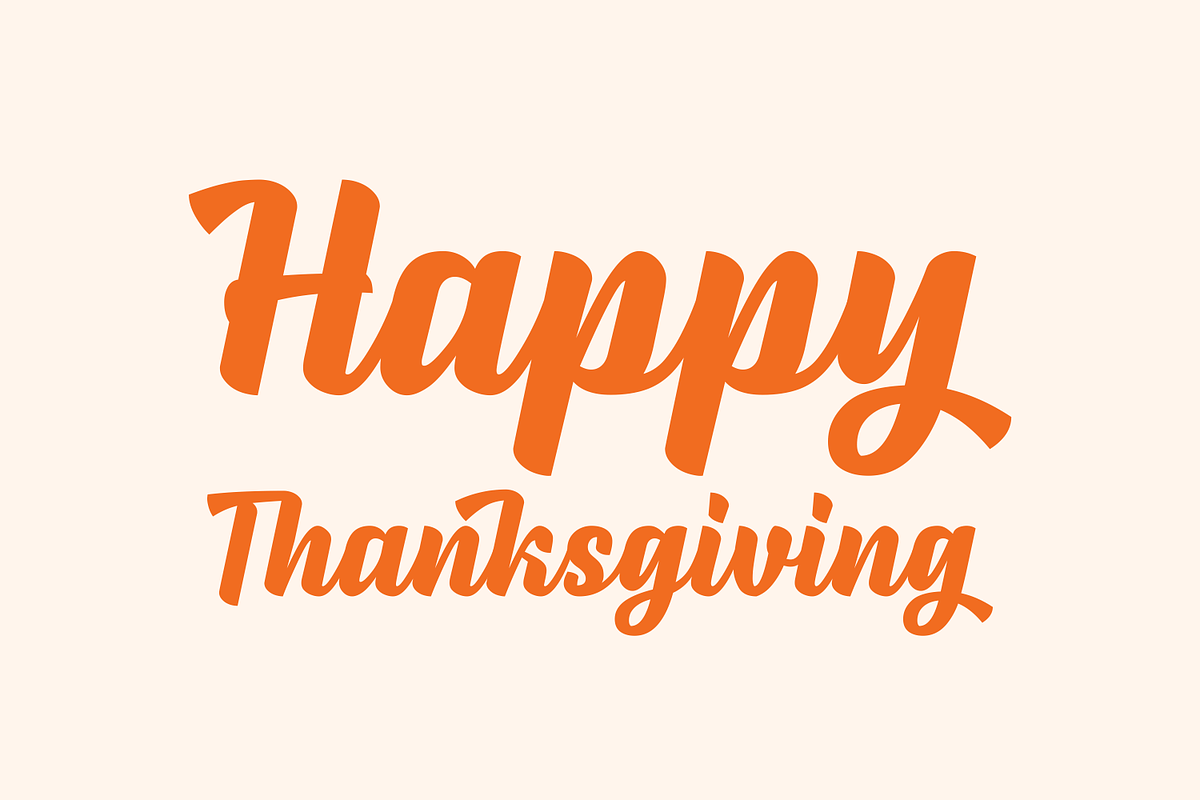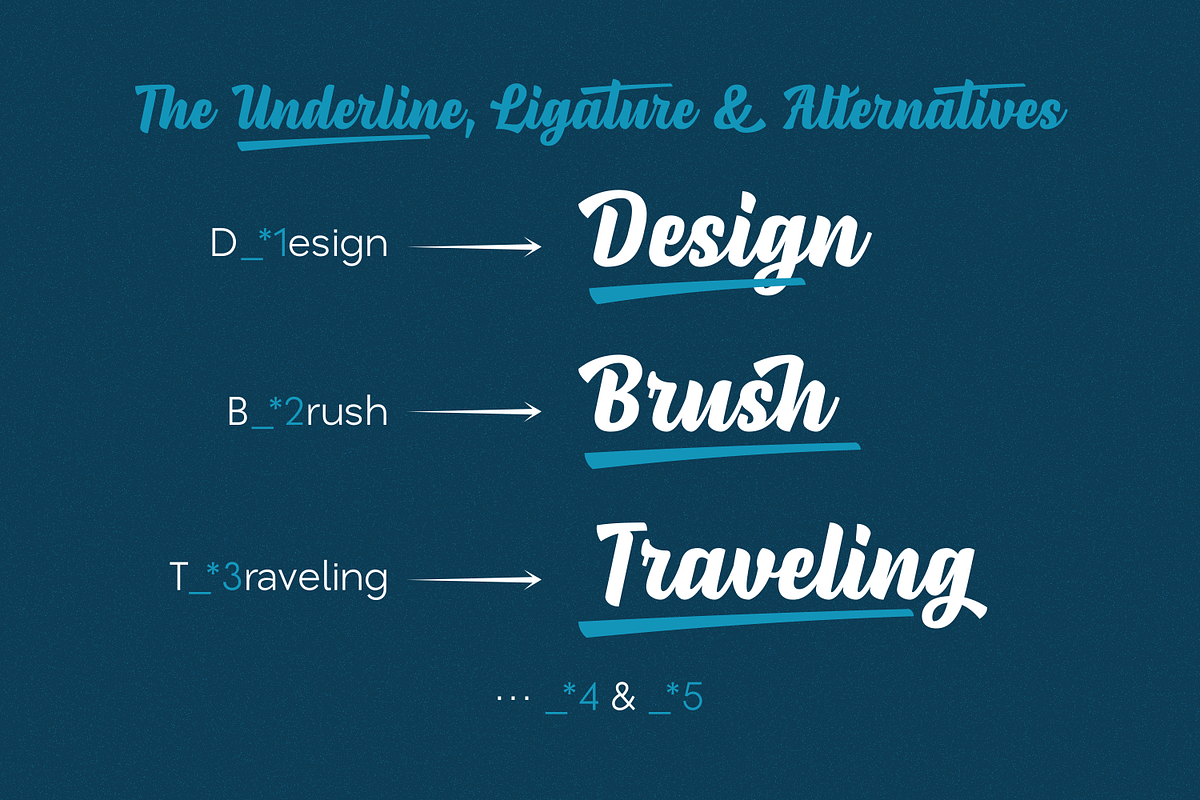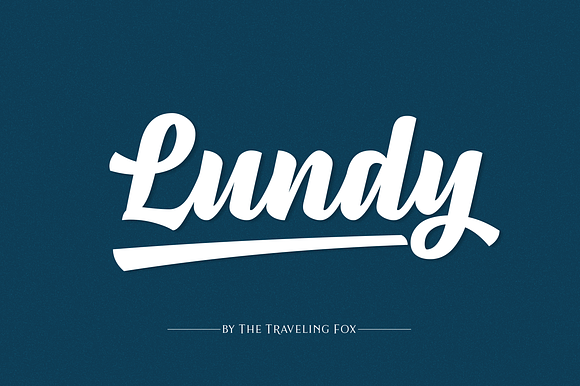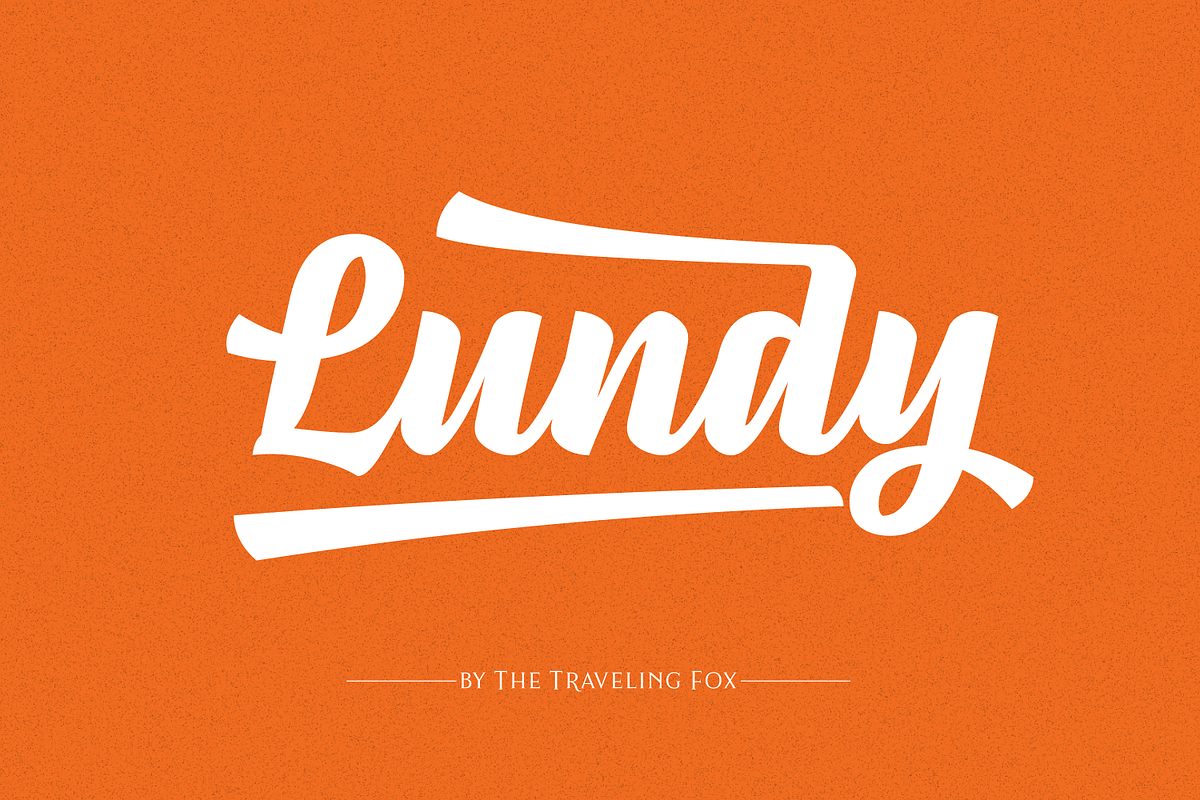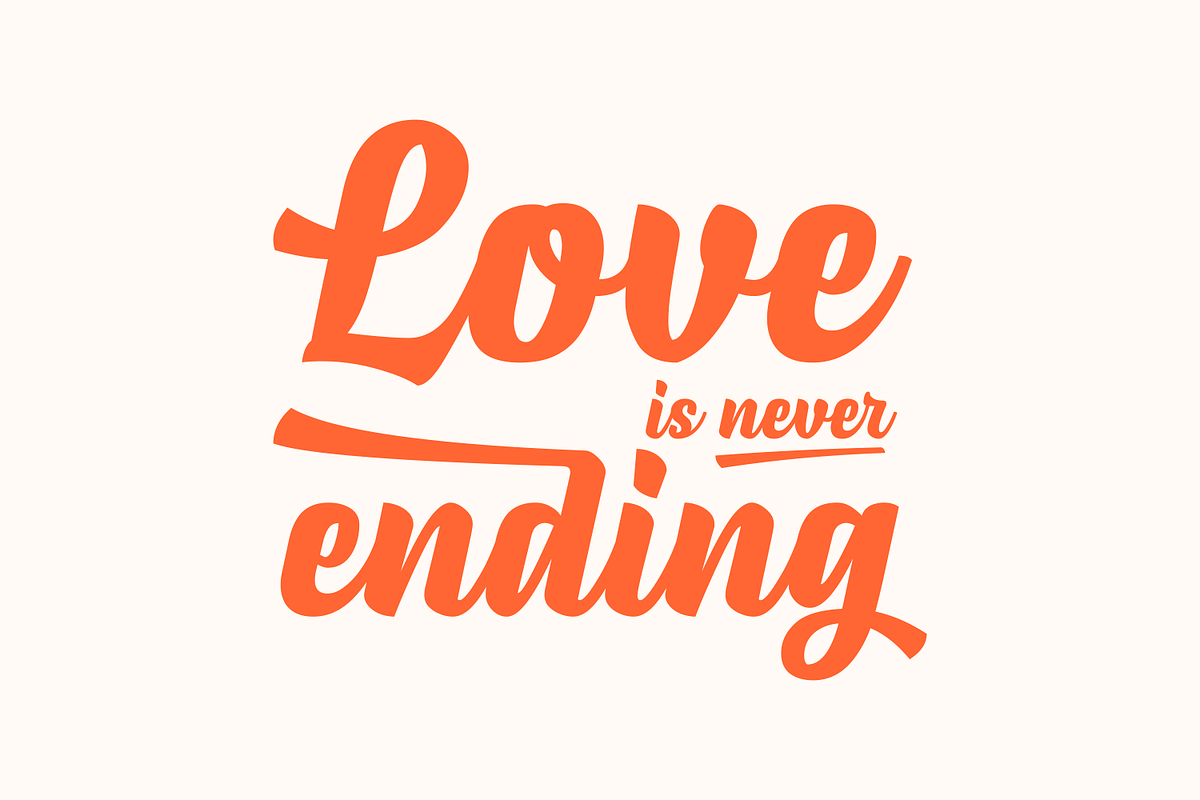
Lundy Skate Type Font
Lundy is bold, versatile font. It’s expressive and great for branding, crafting and much more. It is easy to read and works well for digital designs, print & cut.
To add the decorative line underneath, simply add an underscore, asterisks and the number of the swash (for example: T1raveling) or grab it from the PUA encoded section of the font.
Lundy Skate Type Font by The Traveling Fox fits naturally into Branding, posters, packaging, typography.